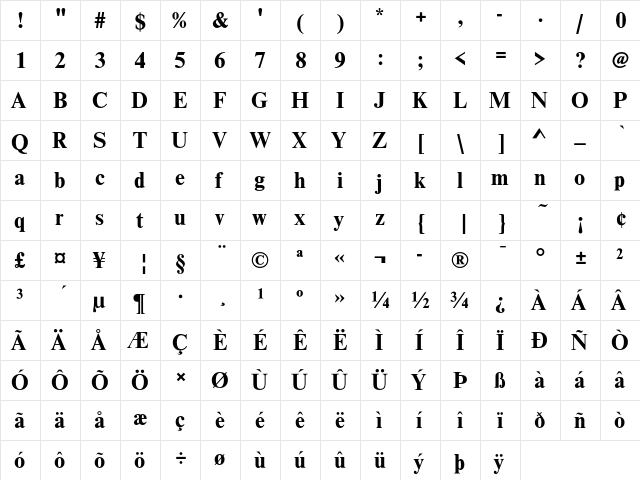
Nimbus Roman D Bold
Design Context for Nimbus Roman D Typeface
Nimbus Roman D is a composed and adaptable typeface that performs quietly and consistently across a wide range of design contexts. The heavy weight commands attention and anchors typographic hierarchies.